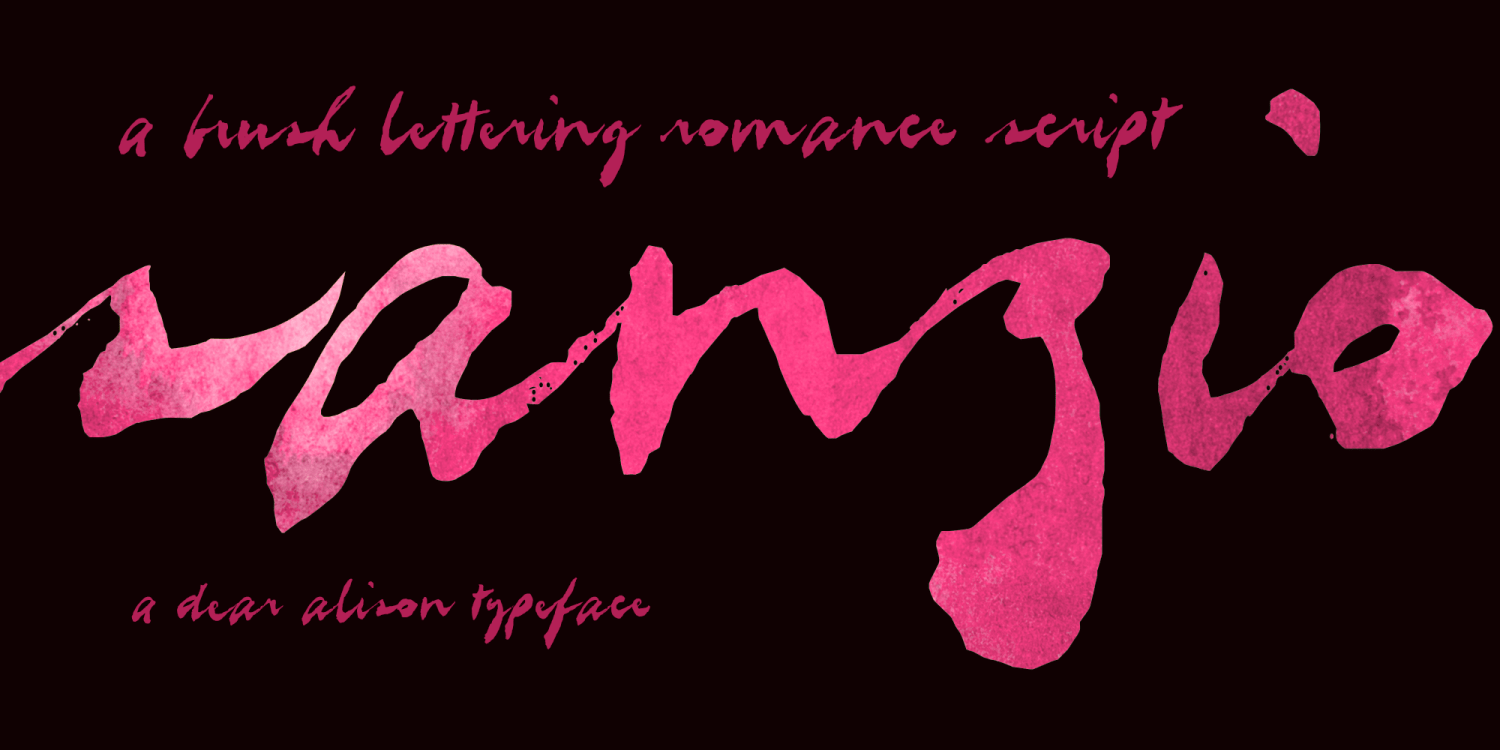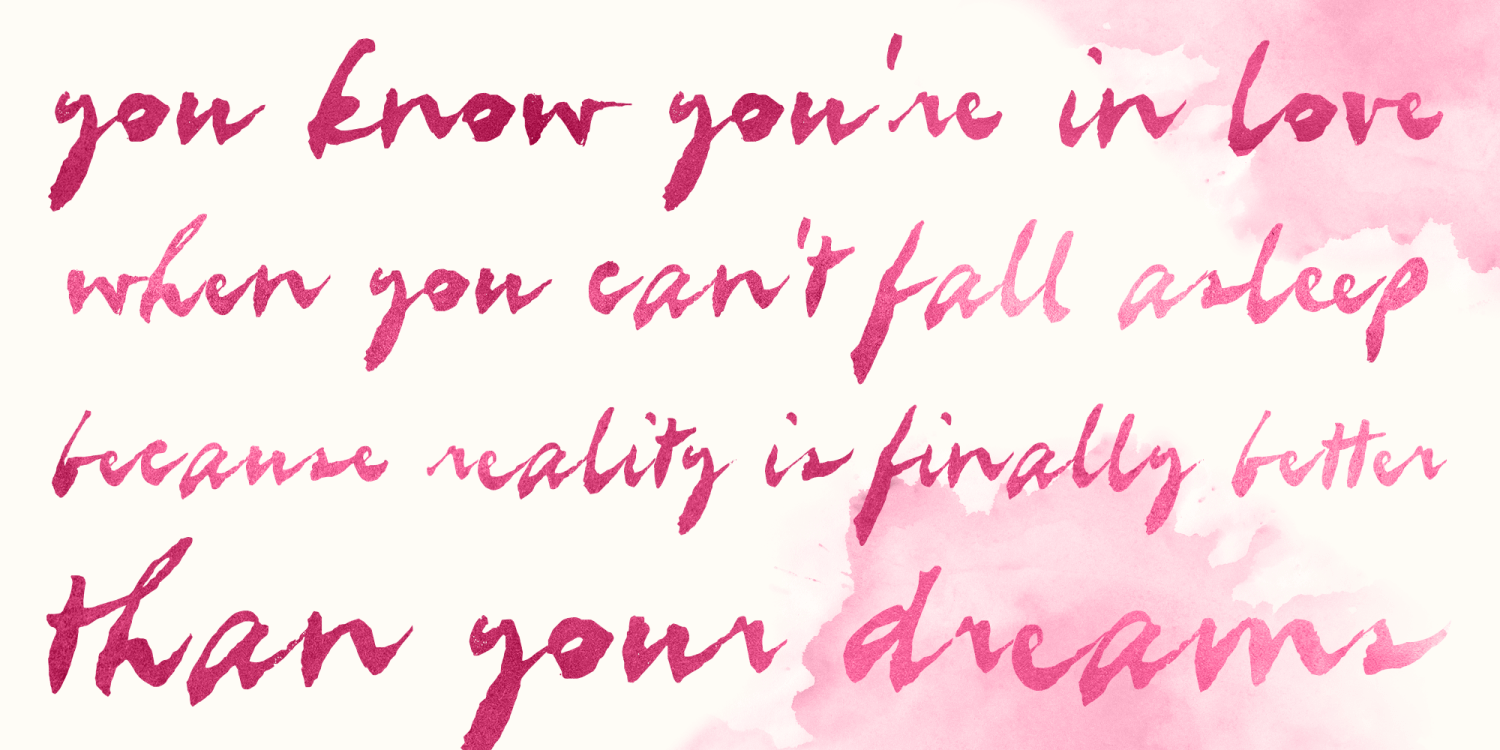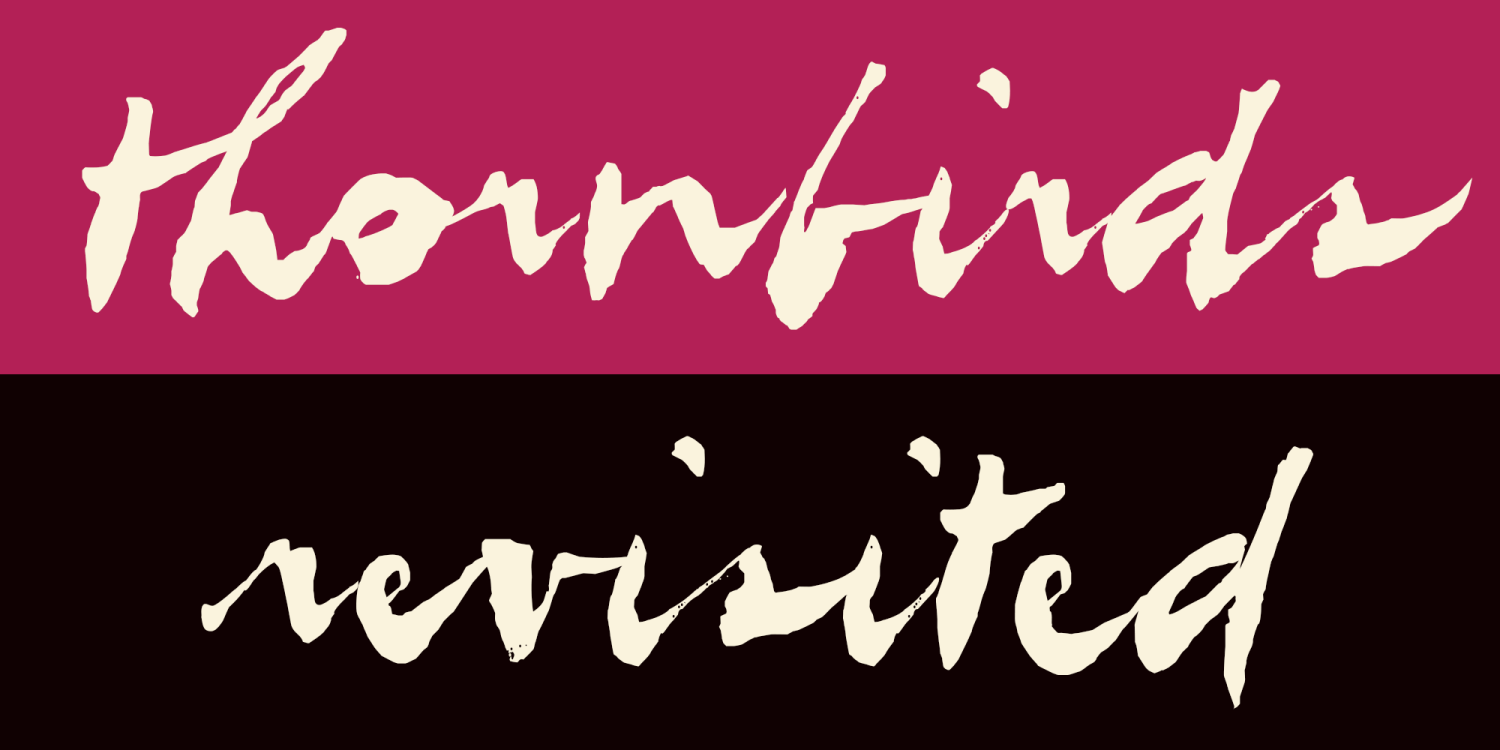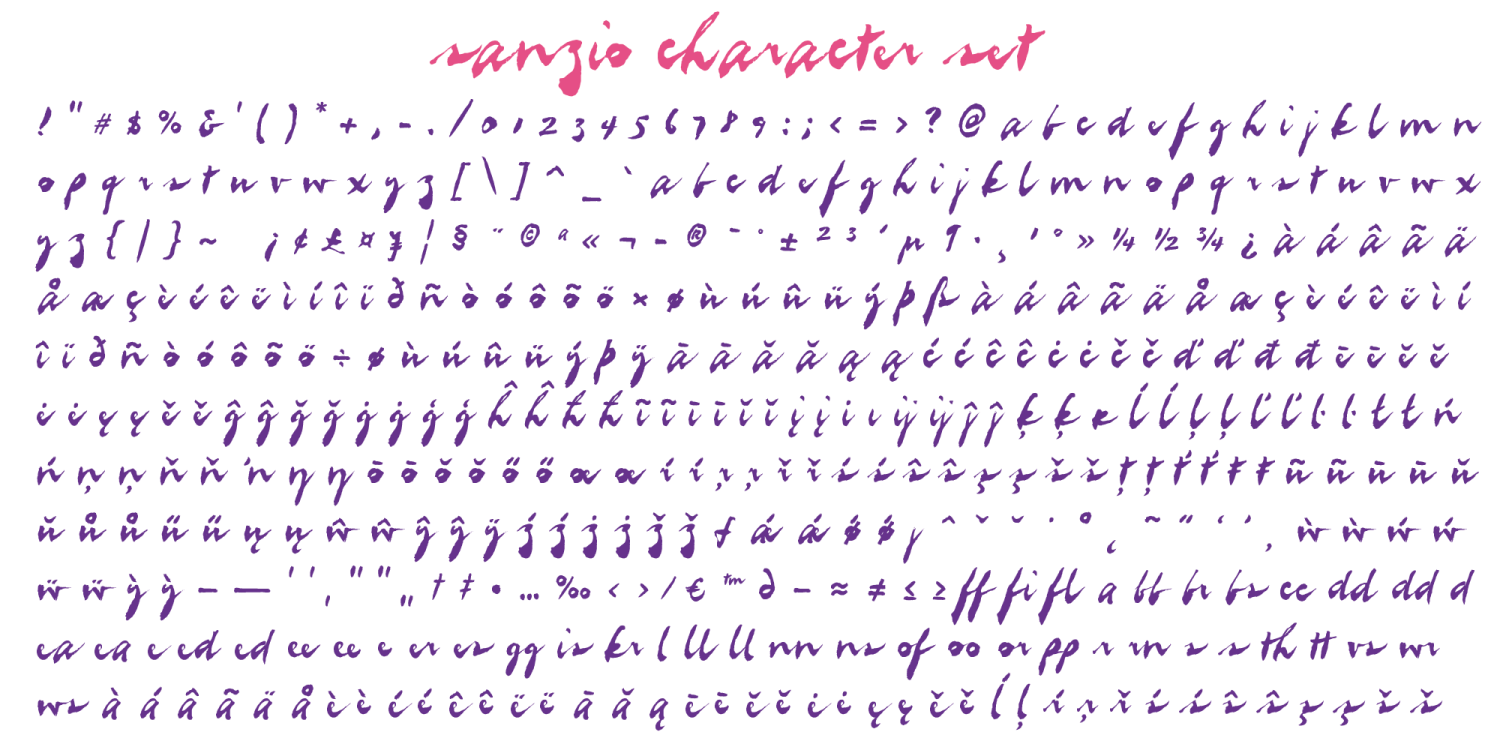
Sanzio
Font Family by Dear Alison
Ever since I was young, the allure of brush lettered scripts has captivated me. There's an inherent expressiveness in every stroke, a dash of personality that transforms mere words into visual masterpieces. The graceful flick of the wrist can breathe life into a letterform, infusing it with charm and character.
Enter Sanzio – a font that exudes sassiness and flair. Its quick-handed elegance adds a touch of nostalgia to any project, instantly transporting you to a bygone era filled with adventure and intrigue.
Whether you're designing invitations, crafting logos, or simply spicing up your font collection, Sanzio is more than up for the task. So why wait? Embrace the allure of brush lettering and unleash your creativity with Sanzio today!